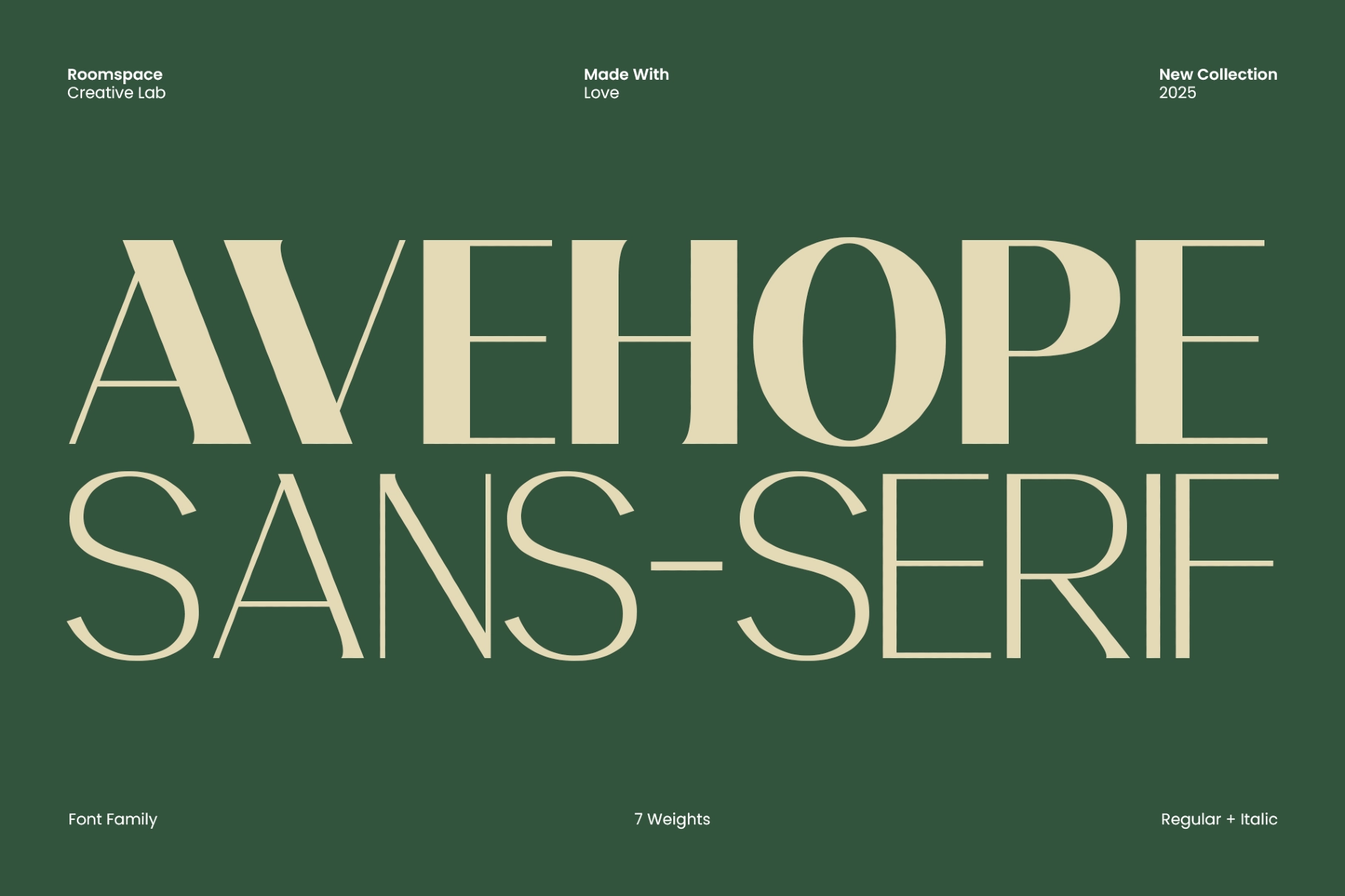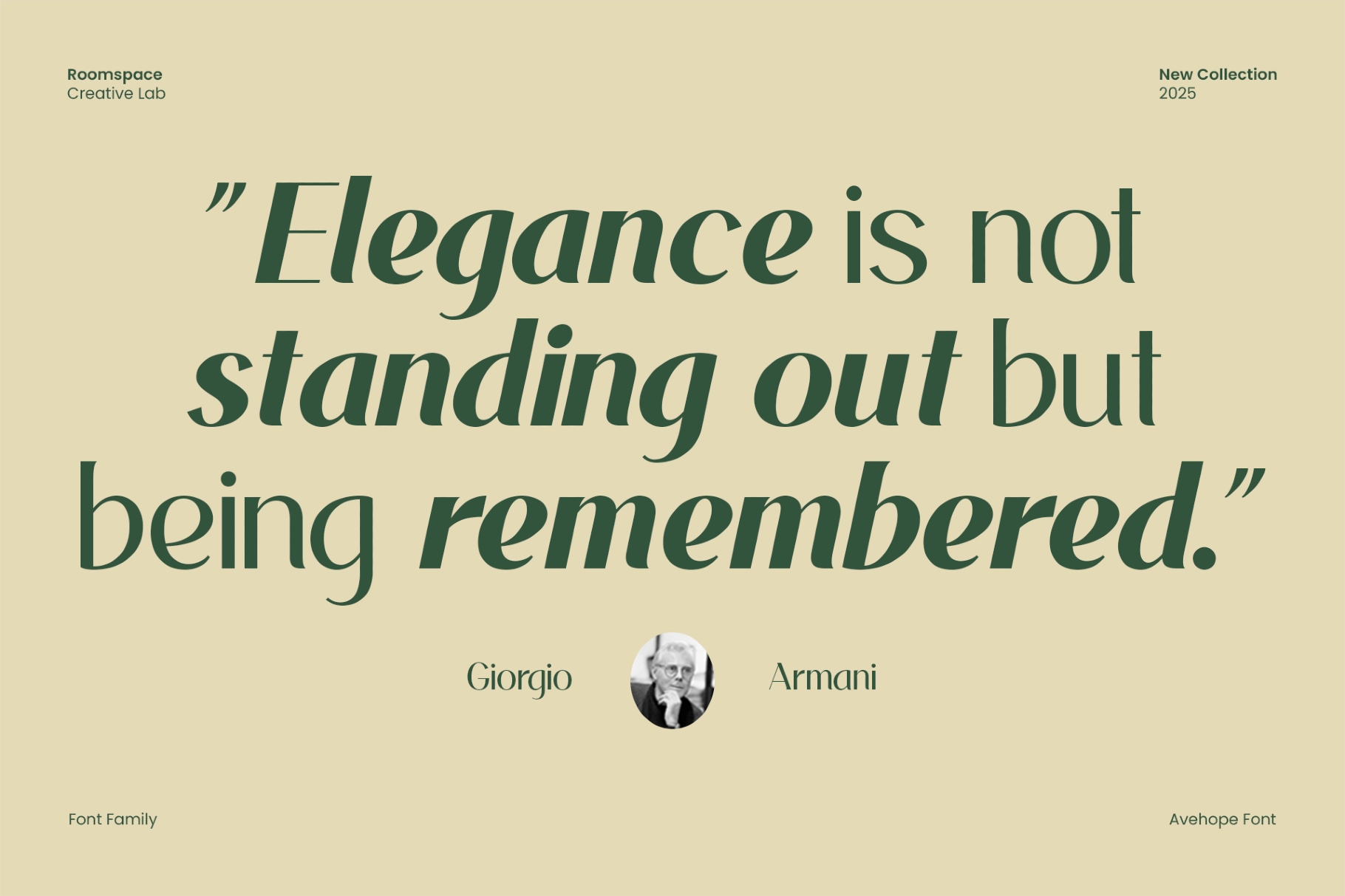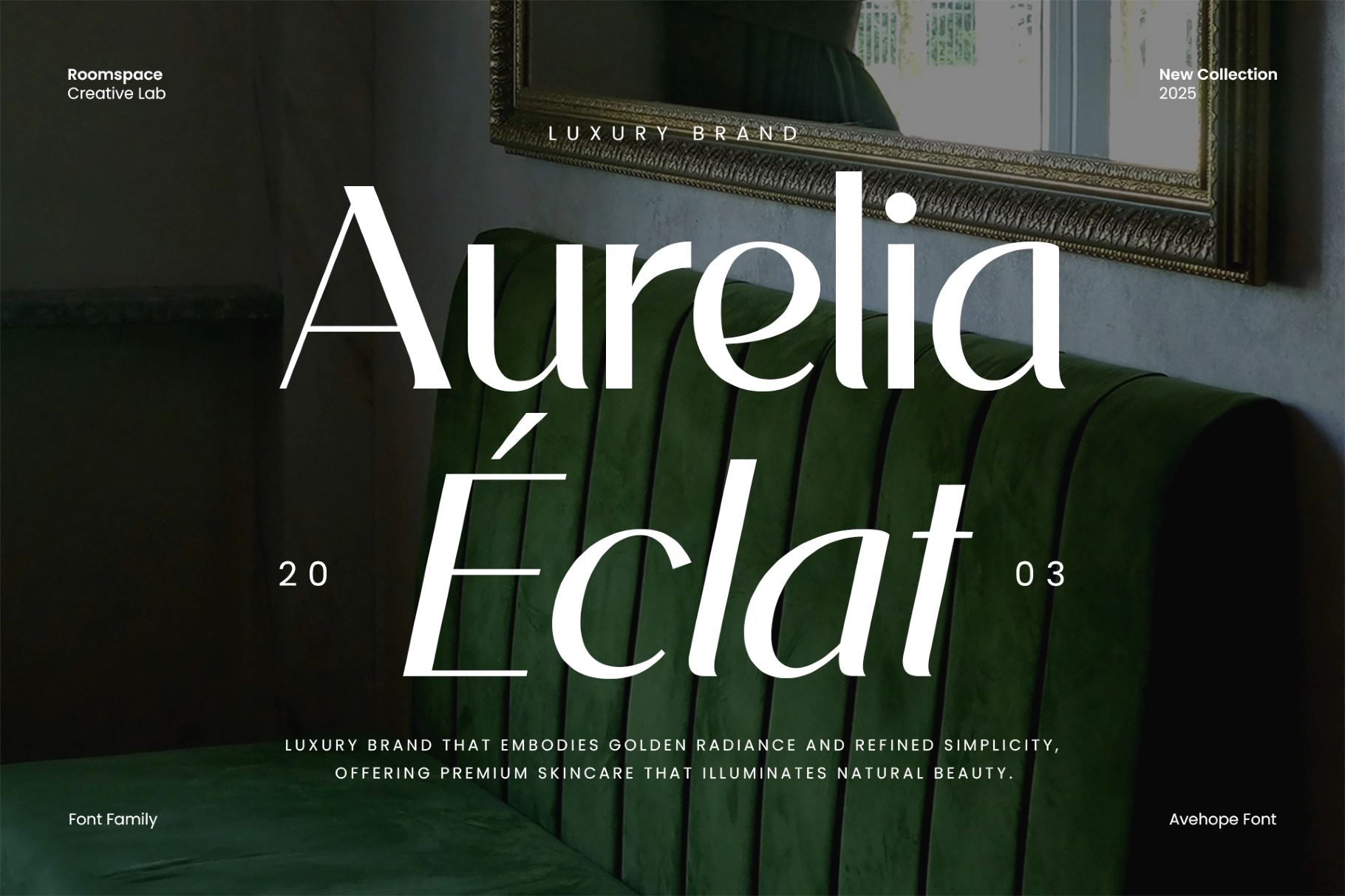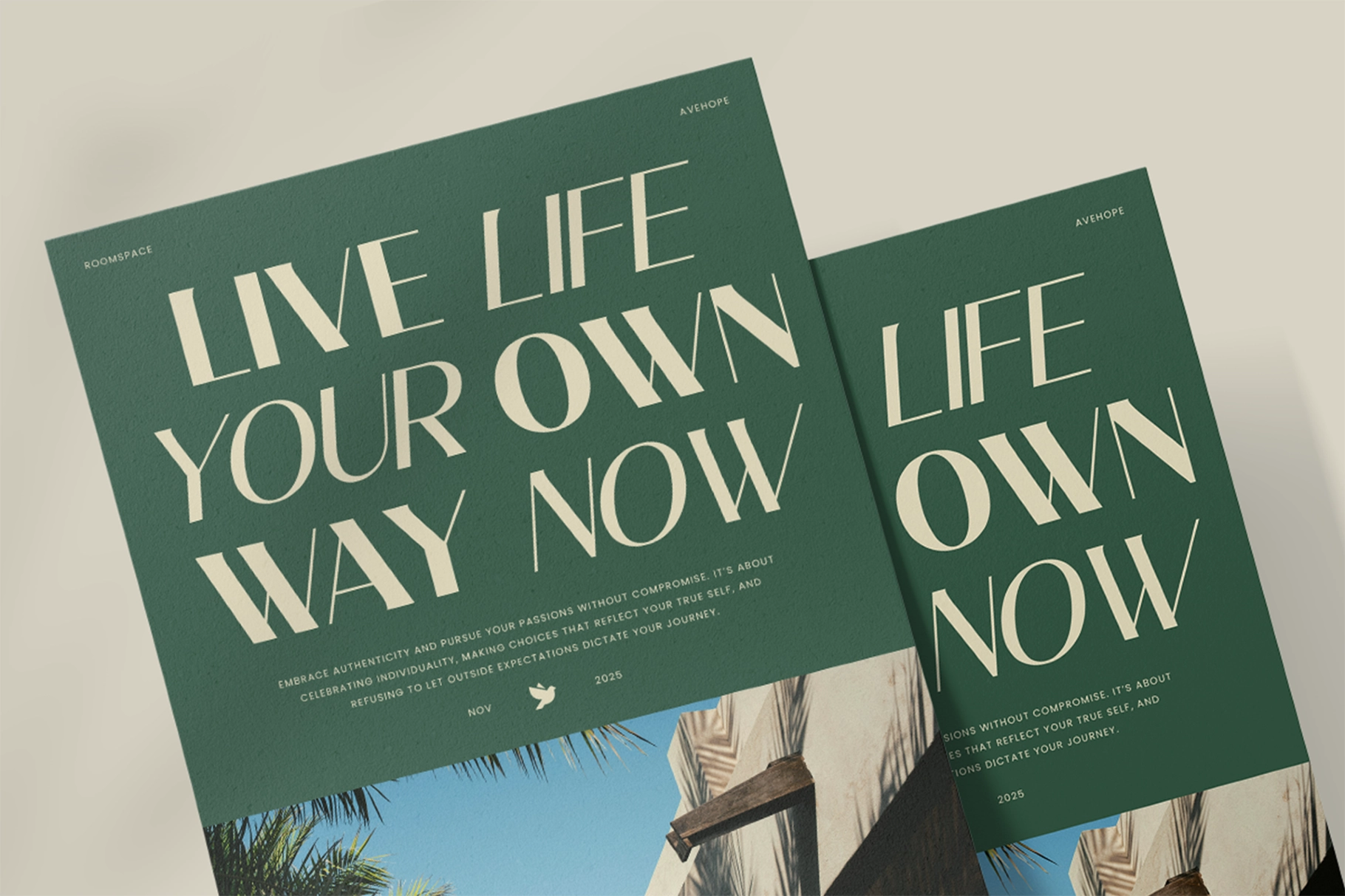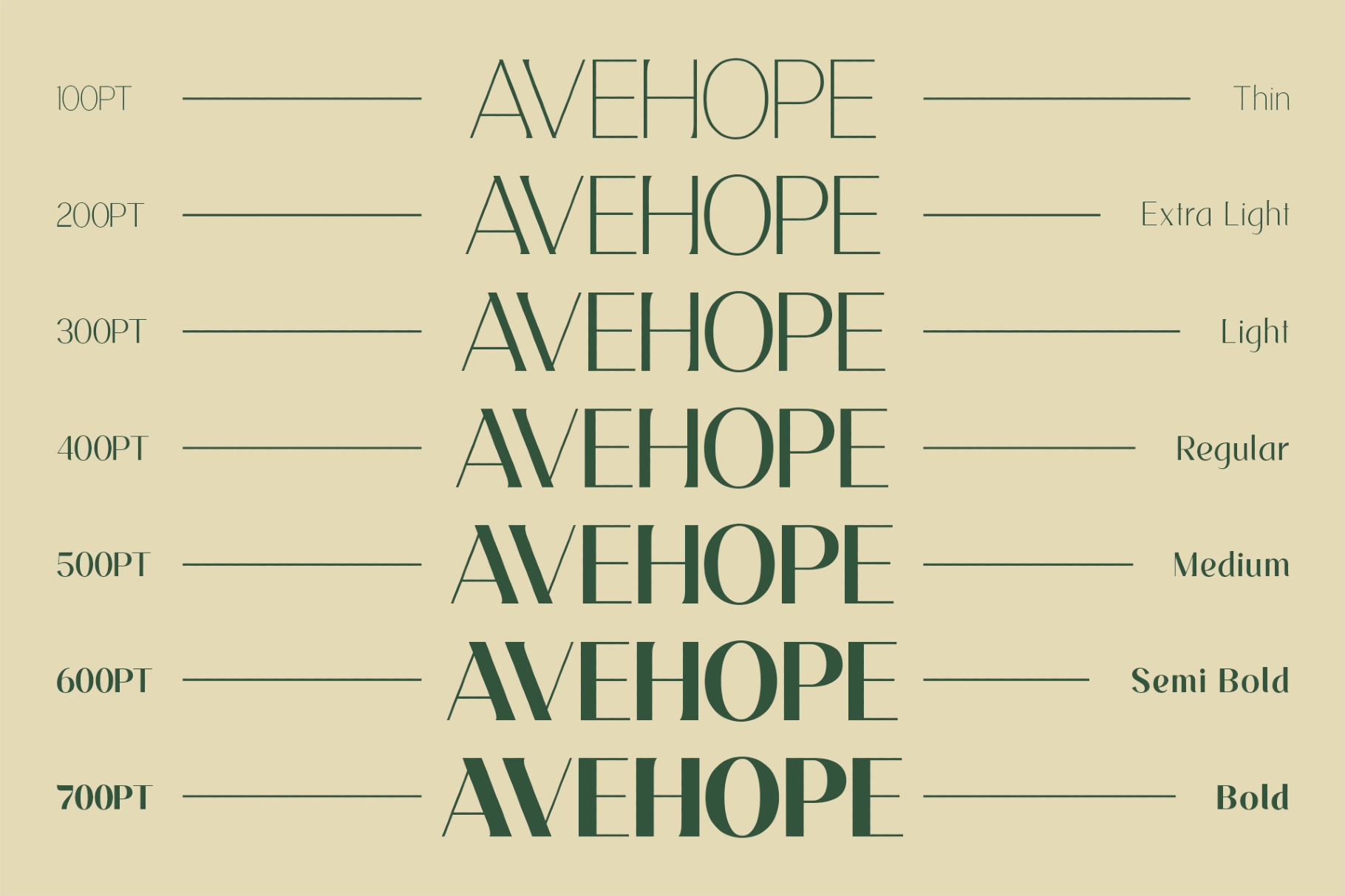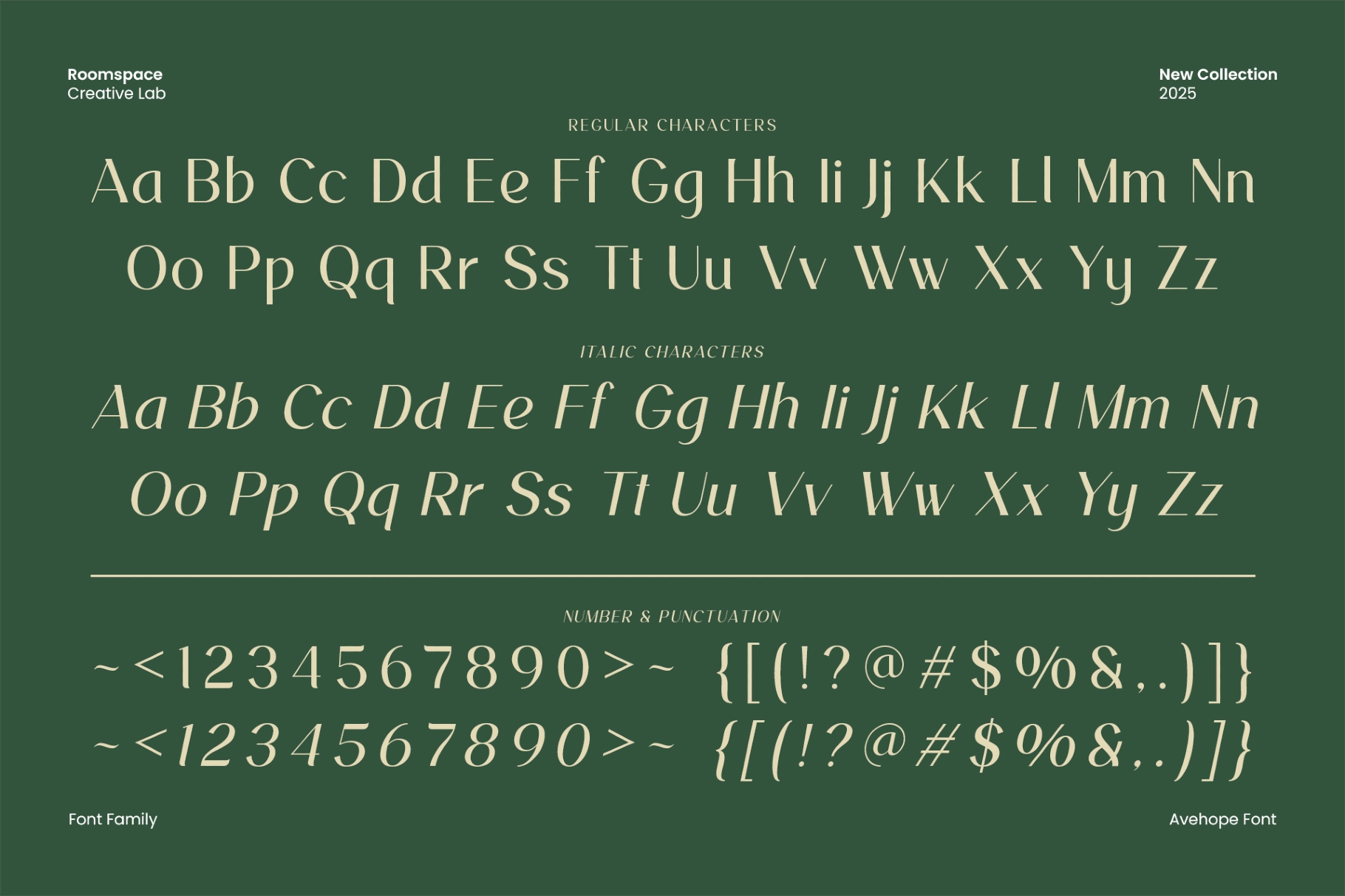
Avehope – Modern Geometric Sans Font
Avehope is a high-contrast geometric sans serif font family with a construction that borrows from the didone tradition: hairline diagonals on A, V, and W, dramatically thin horizontals on E and H, and thick verticals that give the family its editorial authority. The italic is genuinely calligraphic — the a, g, and descenders open up into flowing curves that pair well against the upright's precision. At Thin it reads as refined and spaced; at Bold it occupies a poster with graphic force.
The 14-style range — seven weights plus matching italics — makes it a complete typographic system for building hierarchy from headline to caption in a single family.
• 2 Styles: Regular, Italic;
• 7 Weights: Thin to Bold;
• Uppercase & lowercase;
• Numerals, punctuation & symbols;